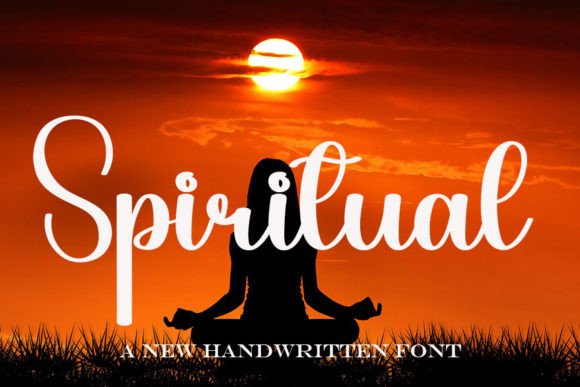
Behold, the Spiritual Font, a masterpiece of digital calligraphy, designed to capture the essence of heartfelt emotions with every stroke. Inspired by the timeless art of handwritten letters, this script font exudes elegance and charm, evoking a sense of nostalgia and authenticity in your creative pursuits.
With its sweeping curves, delicate flourishes, and intricate details, Spiritual Font stands as a testament to the enduring beauty of handwritten artistry. Each character dances across the digital canvas, carrying a whisper of human touch, adding a touch of warmth and individuality to your designs.
Immerse yourself in the boundless creative possibilities that await with the Spiritual Font. Whether you're crafting heartfelt invitations, enchanting logos, or captivating social media posts, this font will elevate your words, transforming them into visual expressions of art.
Step into a world where emotions and aesthetics intertwine, where your designs transcend the ordinary and take on a life of their own. Spiritual Font is your gateway to this realm of creative enchantment, unlocking the power to weave tales of love, joy, and inspiration through the written word.